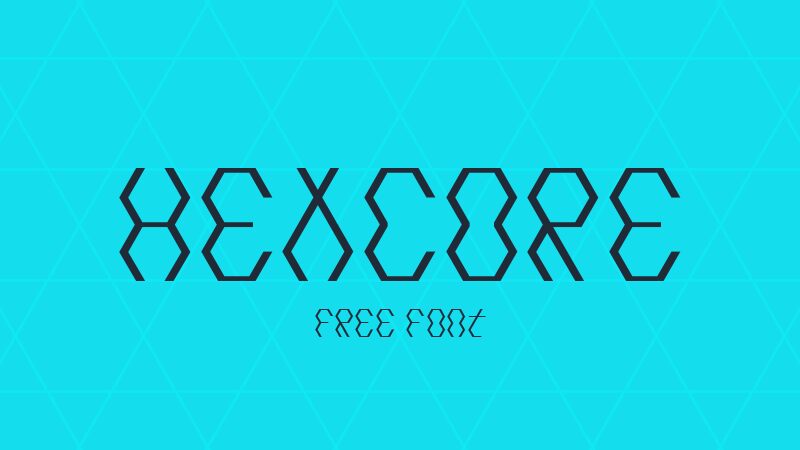
Hexcore, the brainchild of GGBotNet, is a sleek display font that exudes a futuristic vibe. Its semi-light weight and condensed width lend an air of efficiency and speed, making it ideal for tech-based projects such as websites or mobile apps. The techno style of Hexcore adds a touch of edginess to any design, perfect for bold branding or eye-catching headlines. Whether you're looking to create a cutting-edge logo or an attention-grabbing poster, Hexcore is the semi-bold font that will take your project to the next level.
Hexcore